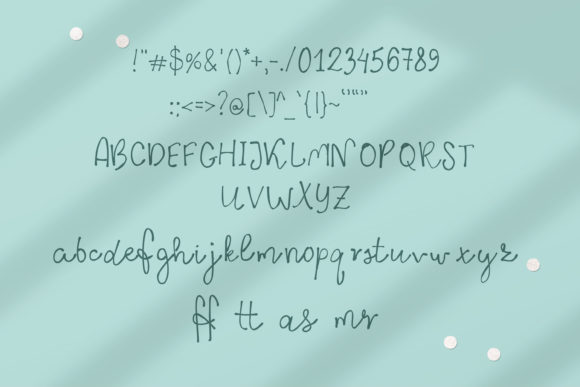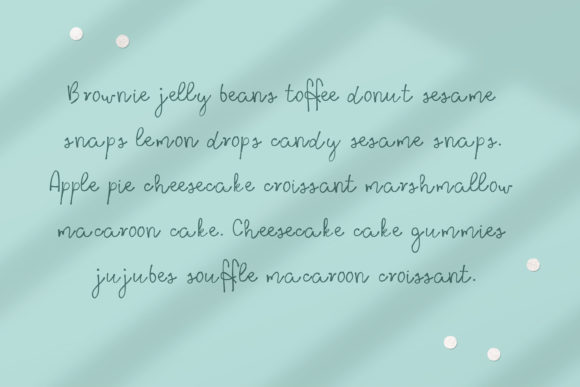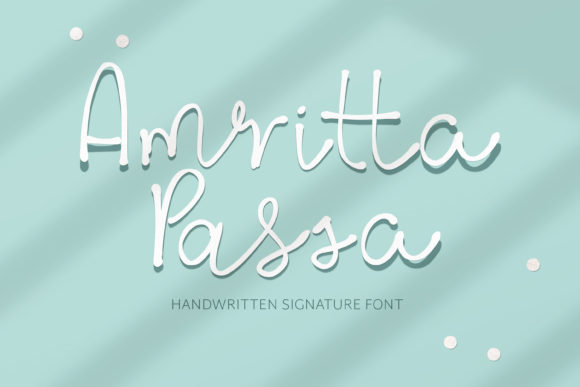
Introducing Amritta Passa Font: The Ultimate Choice for Friendly and Whimsical Designs
Are you on the hunt for a font that exudes warmth, friendliness, and a touch of playfulness? Look no further than Amritta Passa, a stunning handwritten font that’s sure to capture your heart. With its authentic feel and incredibly approachable vibe, Amritta Passa is the perfect choice for designers and crafters looking to add a personal touch to their creations.
The Charm of Amritta Passa
Amritta Passa is a cute and casual handwritten font that’s designed to make your designs stand out from the crowd. Its unique charm lies in its friendly feel, which makes it perfect for a wide range of applications, from wedding invitations and stationery art to social media posts and greeting cards. Whether you’re a professional designer or a crafty DIY enthusiast, Amritta Passa is sure to become your go-to font for all your creative projects.
What Makes Amritta Passa So Special?
So, what sets Amritta Passa apart from other fonts? Here are just a few reasons why this font is a cut above the rest:
- Authentic feel: Amritta Passa has a genuine, handwritten feel that’s sure to resonate with your audience. Its imperfections and quirks make it feel like it was written just for you.
- Friendly vibe: This font exudes warmth and approachability, making it perfect for designs that need to feel welcoming and inclusive.
- Versatility: Amritta Passa is incredibly versatile, and can be used for everything from formal wedding invitations to playful social media posts.
Using Amritta Passa in Your Designs
Amritta Passa is an incredibly versatile font that can be used in a wide range of applications. Here are just a few ideas to get you started:
- Wedding invitations: Create beautiful, one-of-a-kind wedding invitations that set the tone for a romantic and memorable day.
- Stationery art: Add a personal touch to your stationery with Amritta Passa, perfect for journals, planners, and more.
- Social media posts: Make your social media posts stand out with Amritta Passa’s playful, eye-catching style.
- Greeting cards: Create adorable greeting cards for birthdays, holidays, and other special occasions.
Tips for Getting the Most Out of Amritta Passa
To really make Amritta Passa shine in your designs, here are a few tips to keep in mind:
- Experiment with sizes and colors: Amritta Passa looks great in a variety of sizes and colors, so don’t be afraid to get creative and try out different combinations.
- Pair it with other fonts: Amritta Passa pairs beautifully with other fonts, so consider combining it with a bold or serif font for added visual interest.
- Use it consistently: To create a cohesive look, try using Amritta Passa consistently throughout your design.